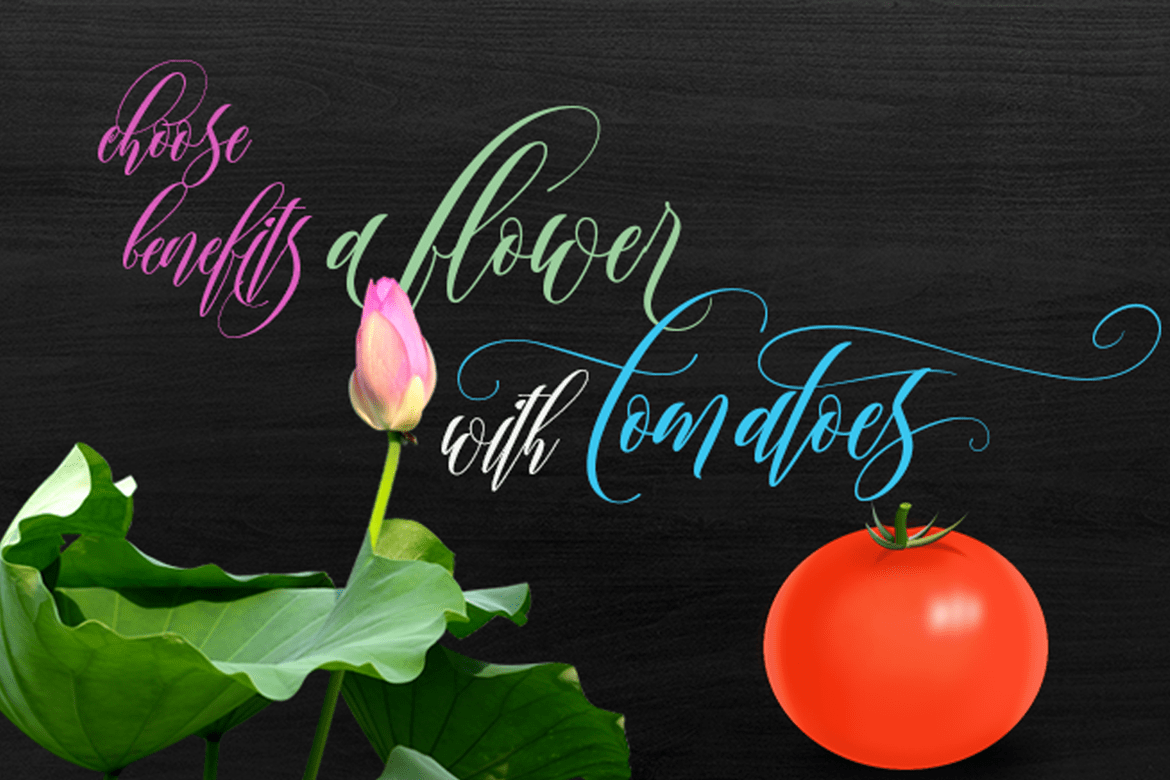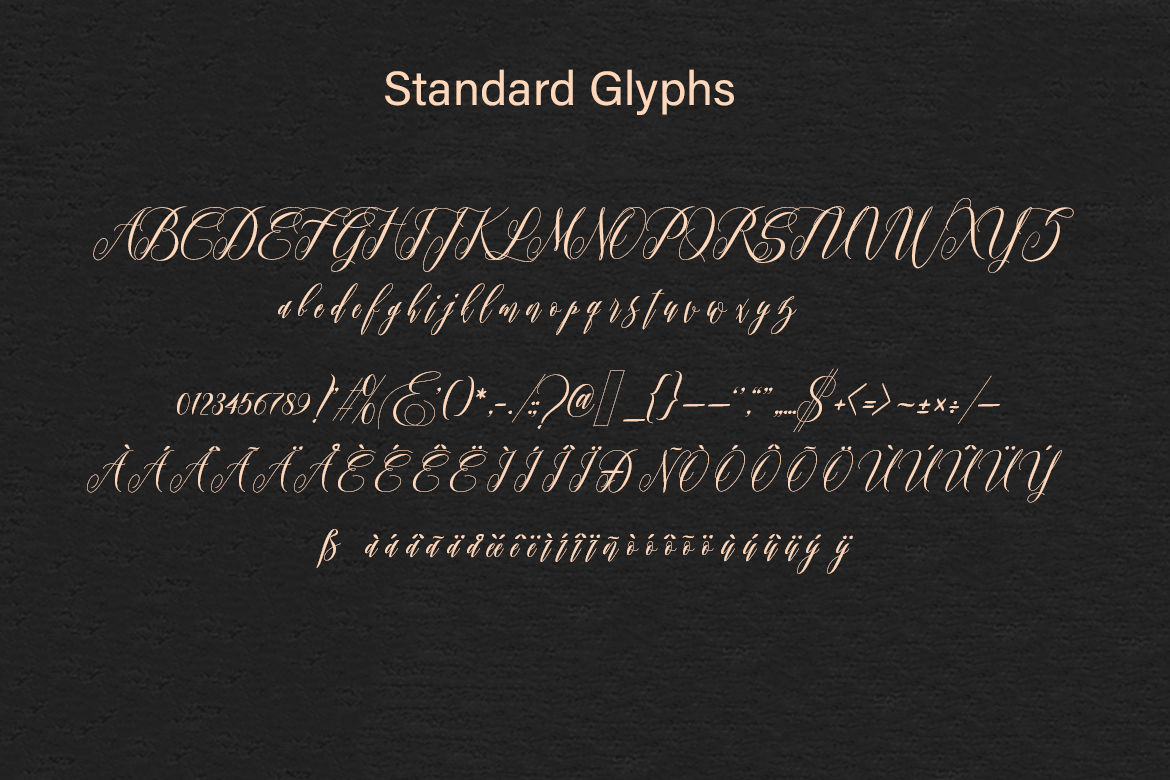
Twetter
Font Family by Groen Studio
The Features of this fonts is:
- Contextual Alternates
- Standart ligatures
- Discretionary ligatures
- Stylistic Alternates
- Stylistic sets
- PUA Unicode (Private Use Areas)